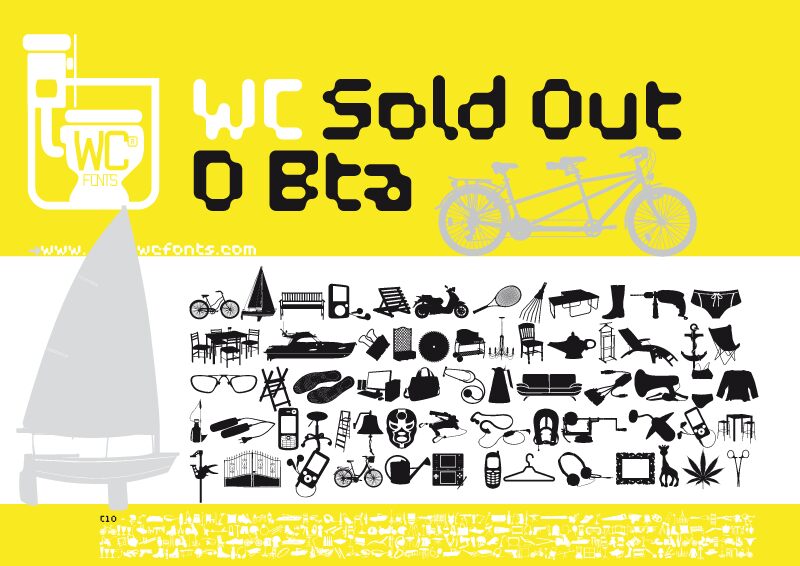
WC Sold Out D from WC Fonts is a free furniture dingbat font built from silhouettes of seating, lighting, and interior objects. The symbols range from broad solid shapes to finer linear details, giving the set the direct look of cut-paper icons.
Furniture illustrations and floor plans can use these symbols as visual elements. They also suit home decor catalogs, event posters, and editorial features where a chair or chandelier can function as both subject and decorative marker.